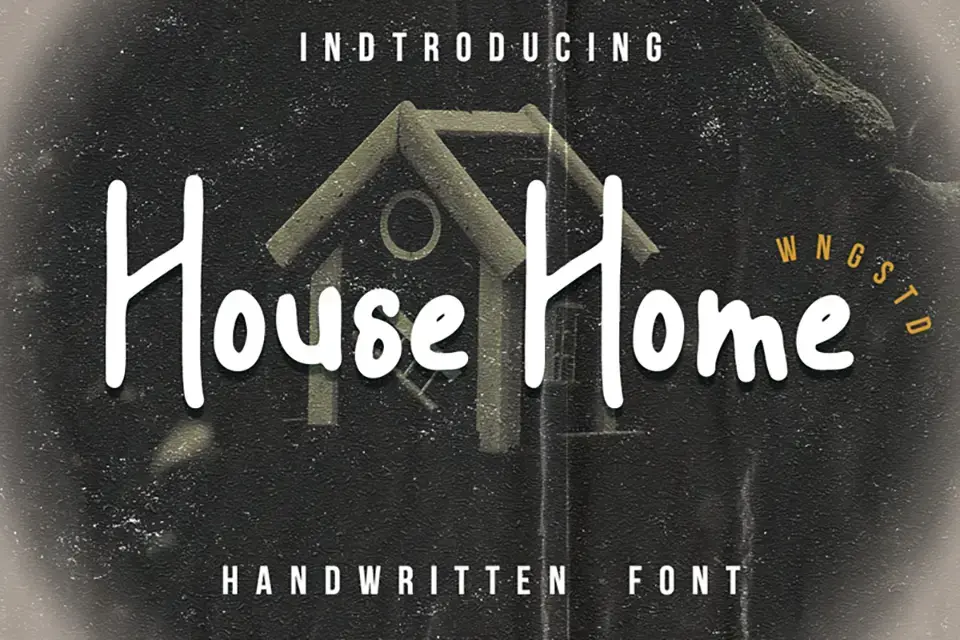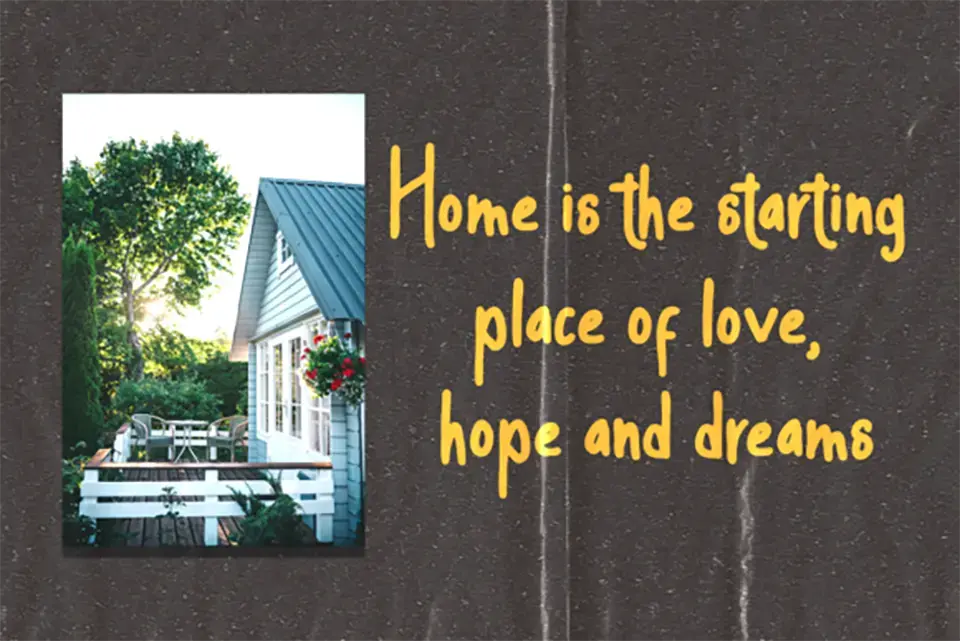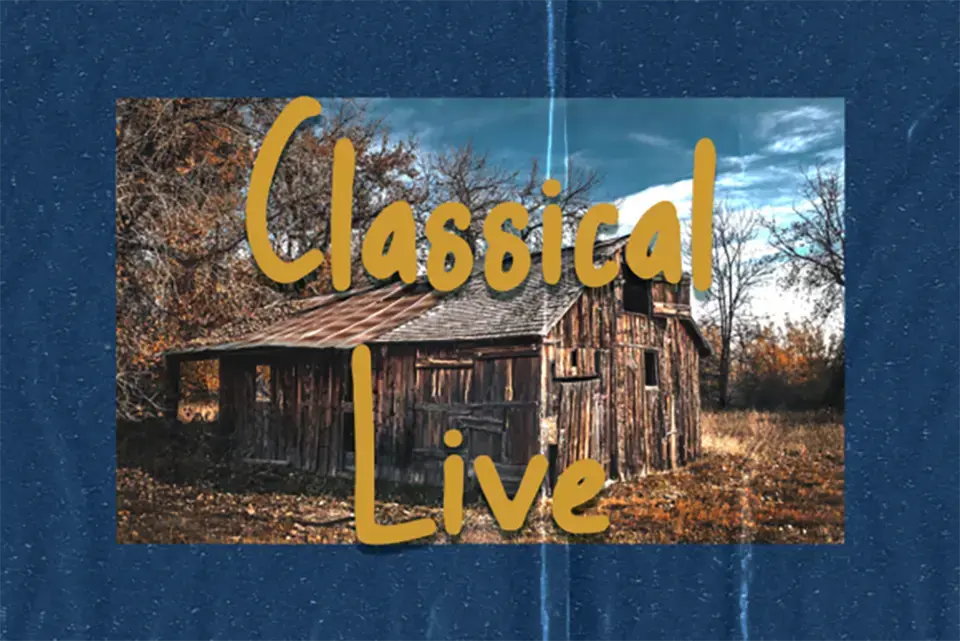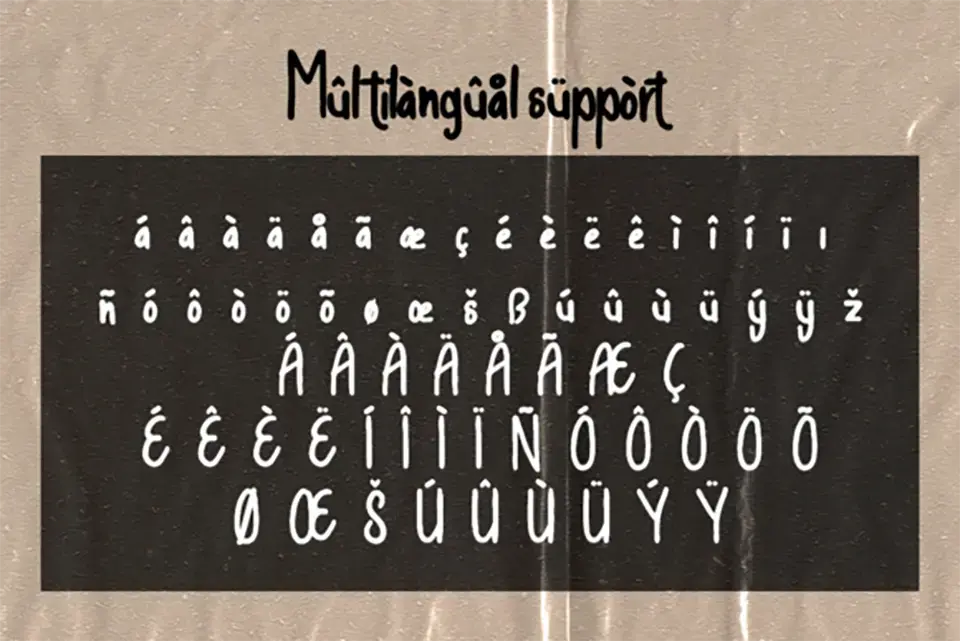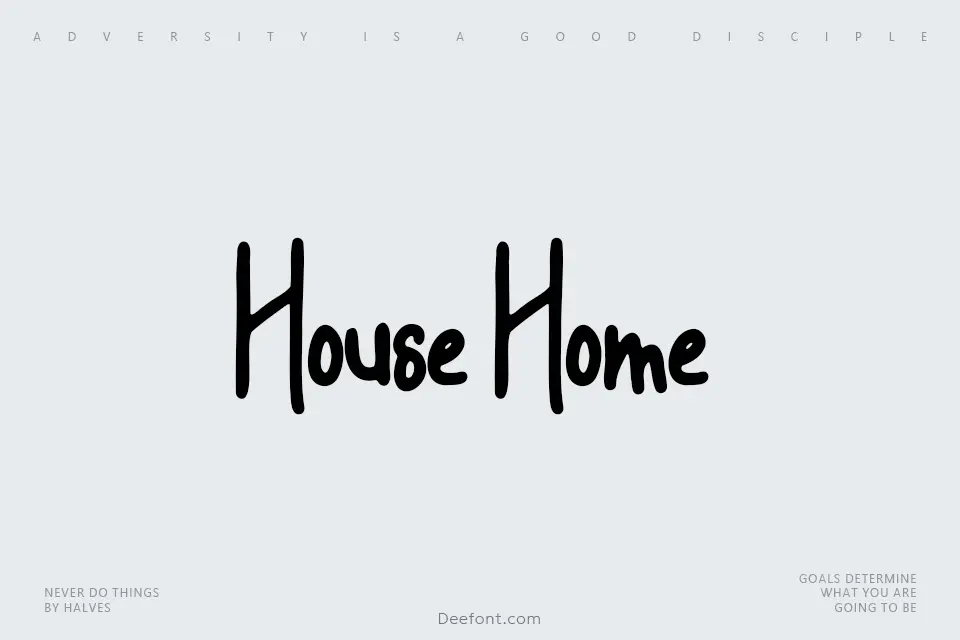
House Home Font
House Home is a warm and inviting handwritten script font that brings natural charm to any creative project. With its gentle curves and flowing strokes, this display typeface excels in posters, greeting cards, invitations, logos, and branding applications. The font's sweet personality and casual elegance make it perfect for adding personality to wedding designs, festive announcements, and social media graphics. Its friendly characteristics work beautifully for both print and digital mediums, offering designers a versatile tool for creating eye-catching, emotionally resonant typography.